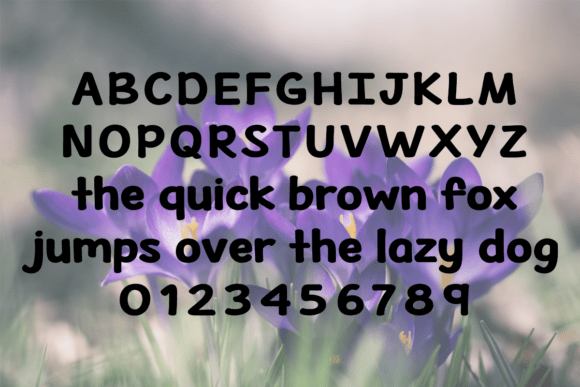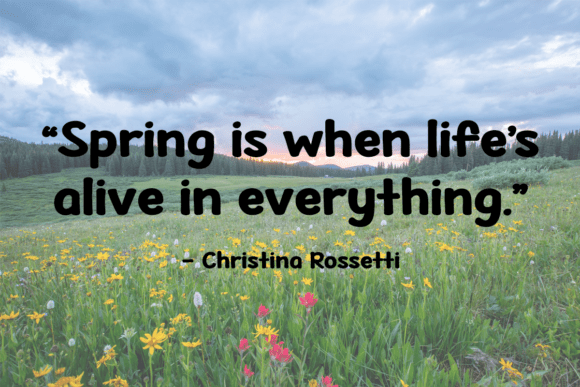
Middle of April Font – Free Download
Introduction to Middle of April Font
Middle of April is a bold font bursting with spring charm.
Its playful strokes and lively energy make it perfect for seasonal designs, greeting cards, and fresh branding Add a touch of warmth and personality to your projects.
Key Features of Middle of April Font